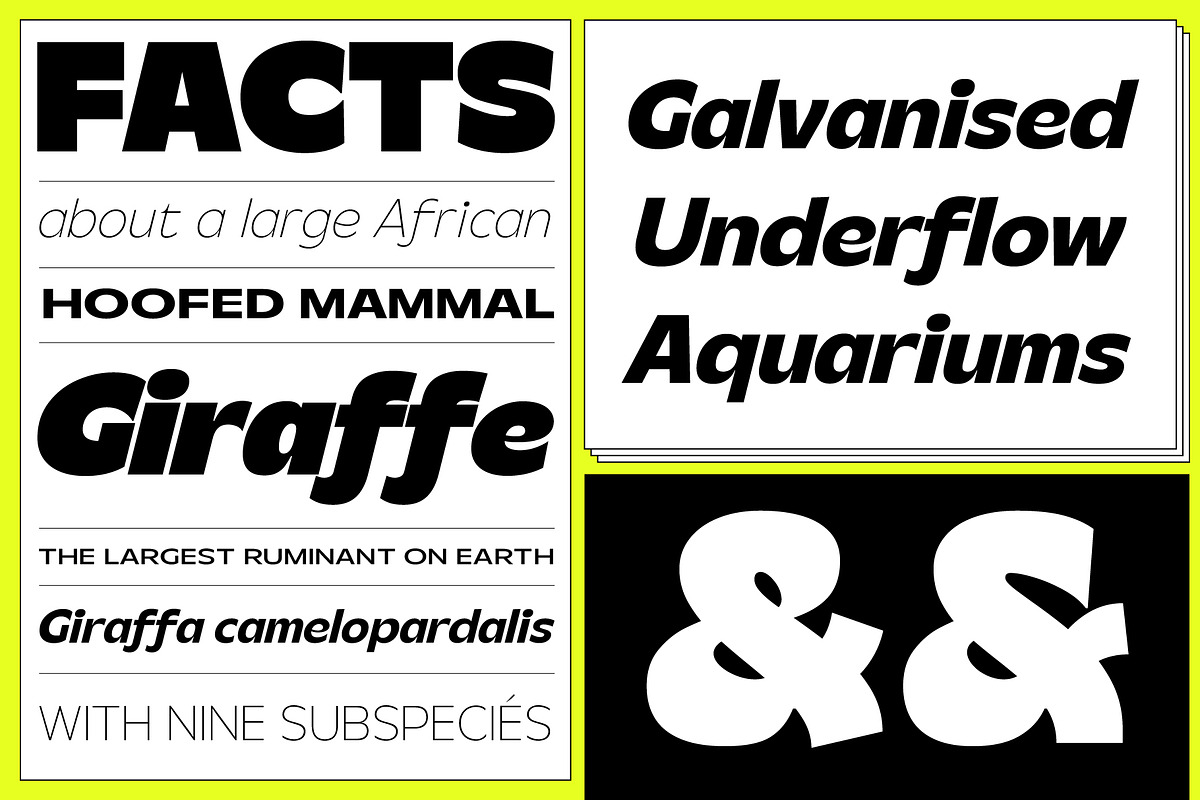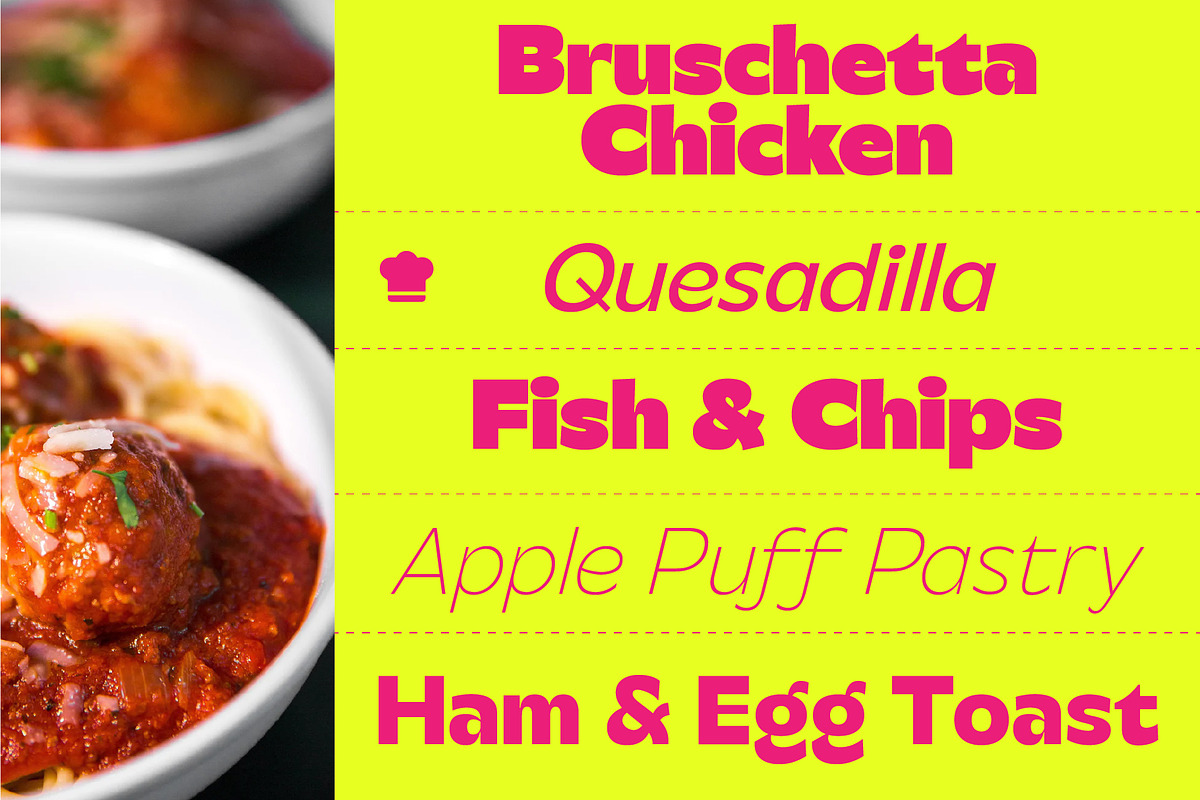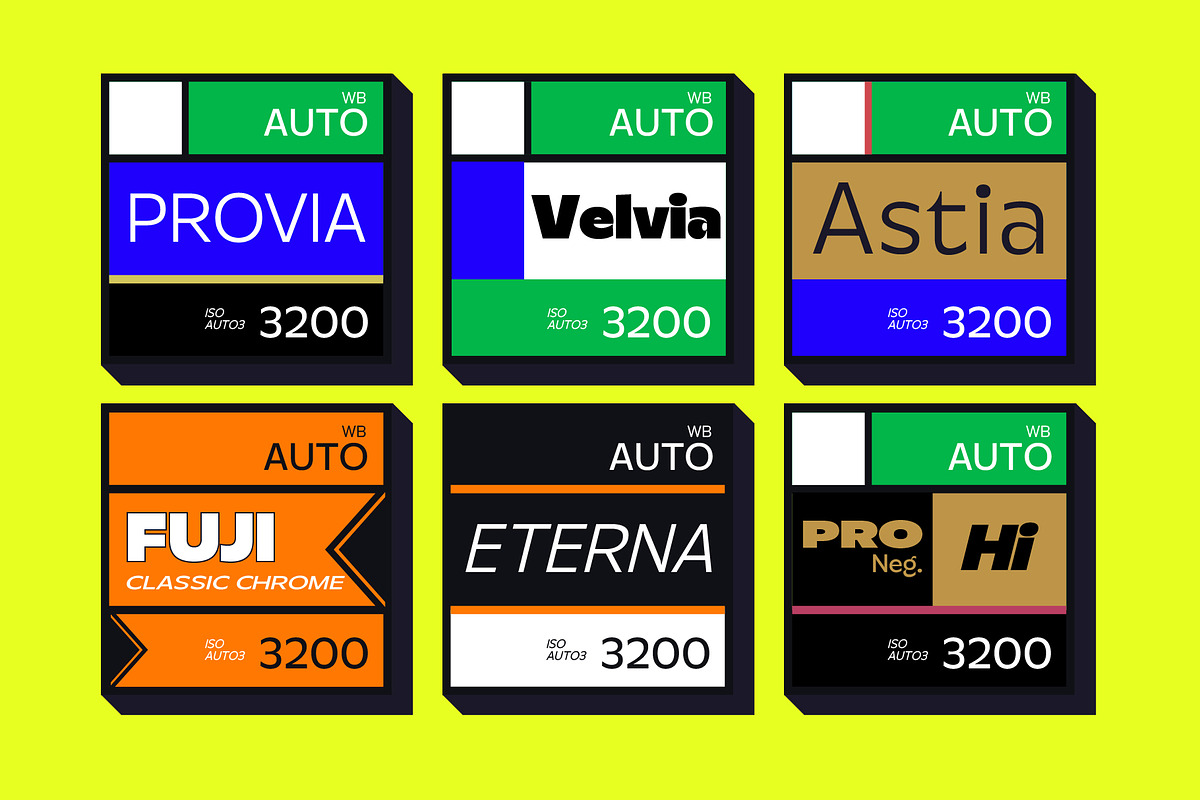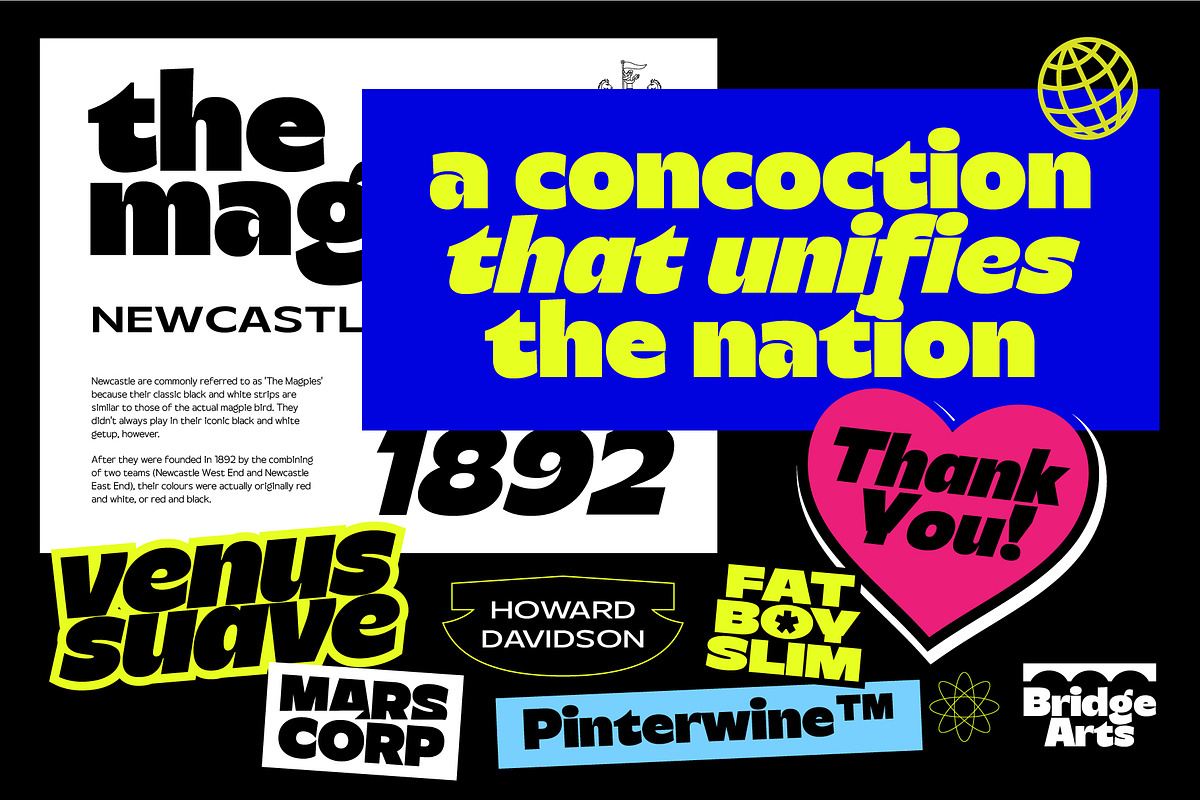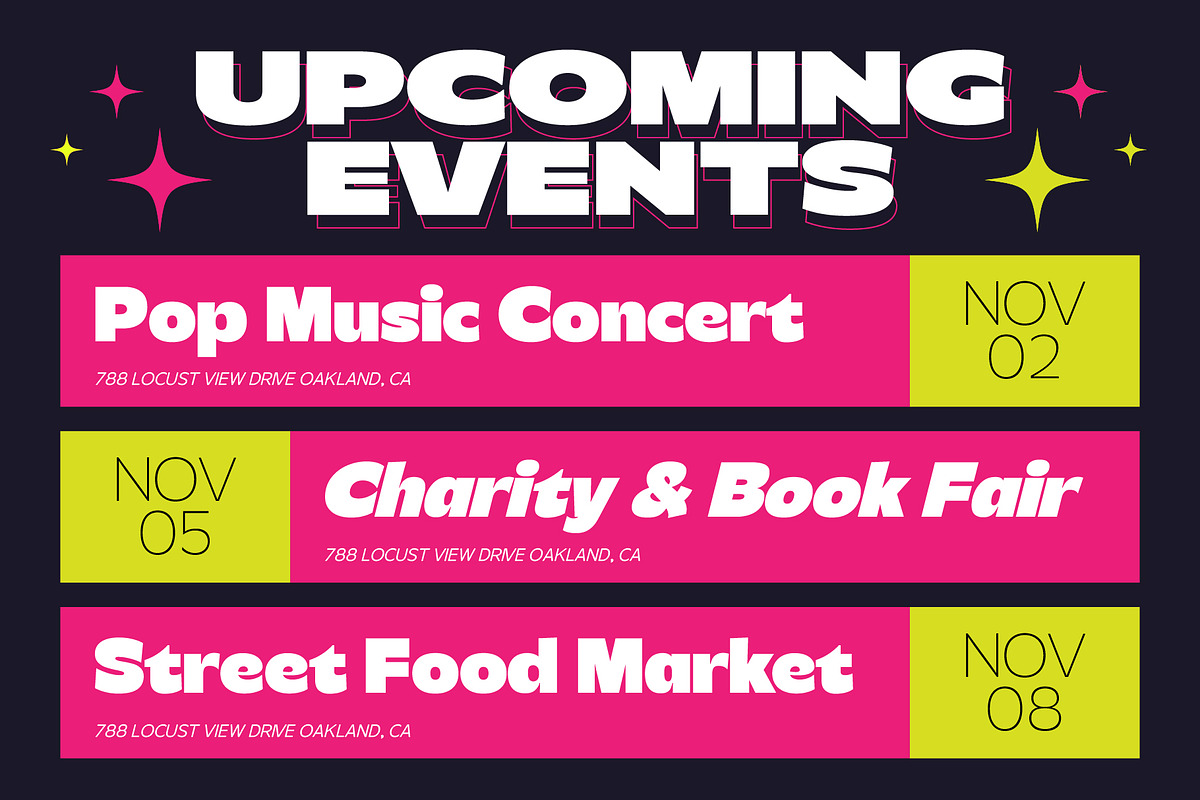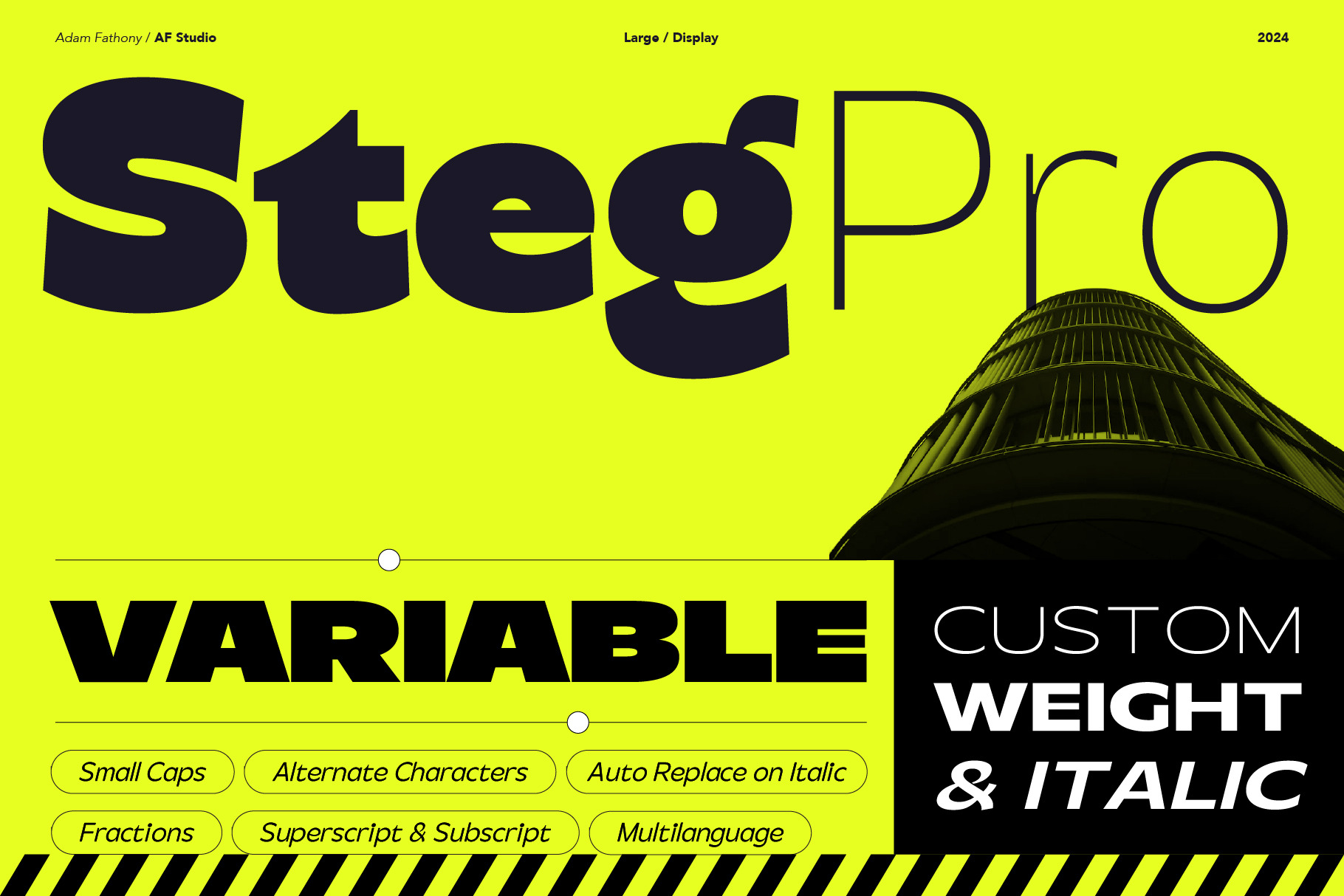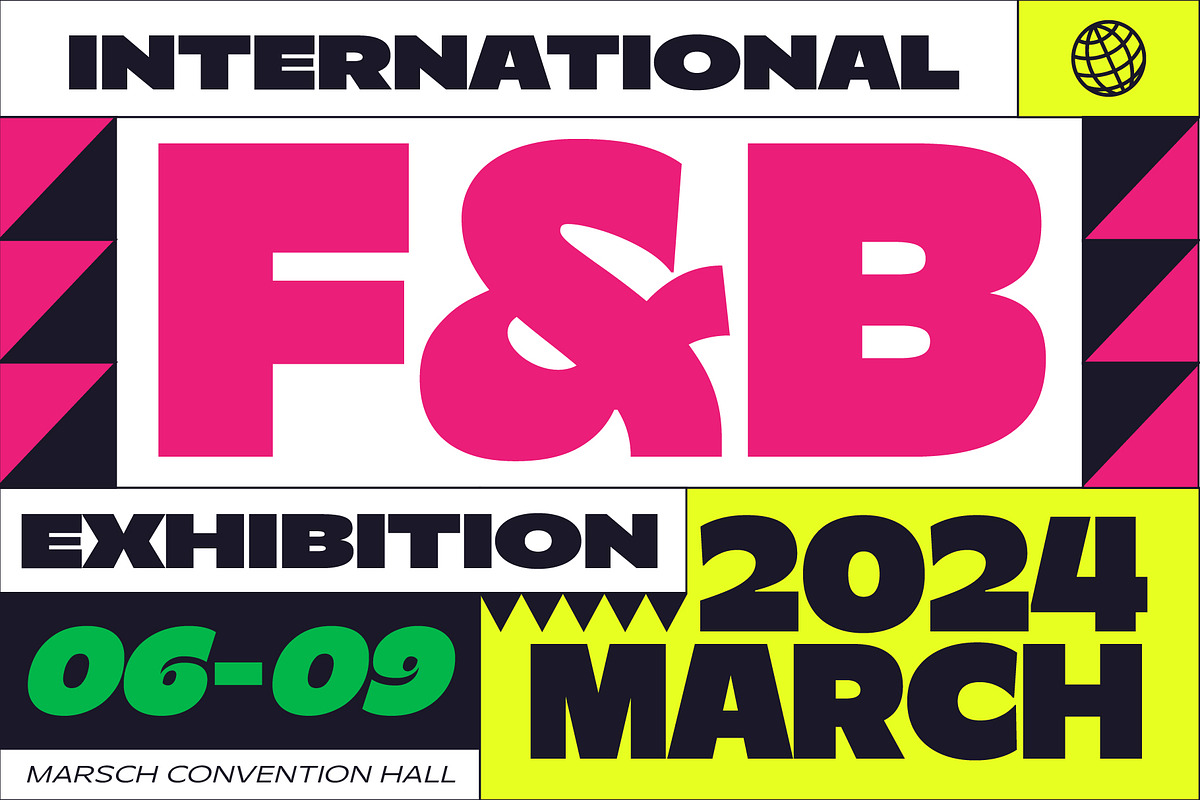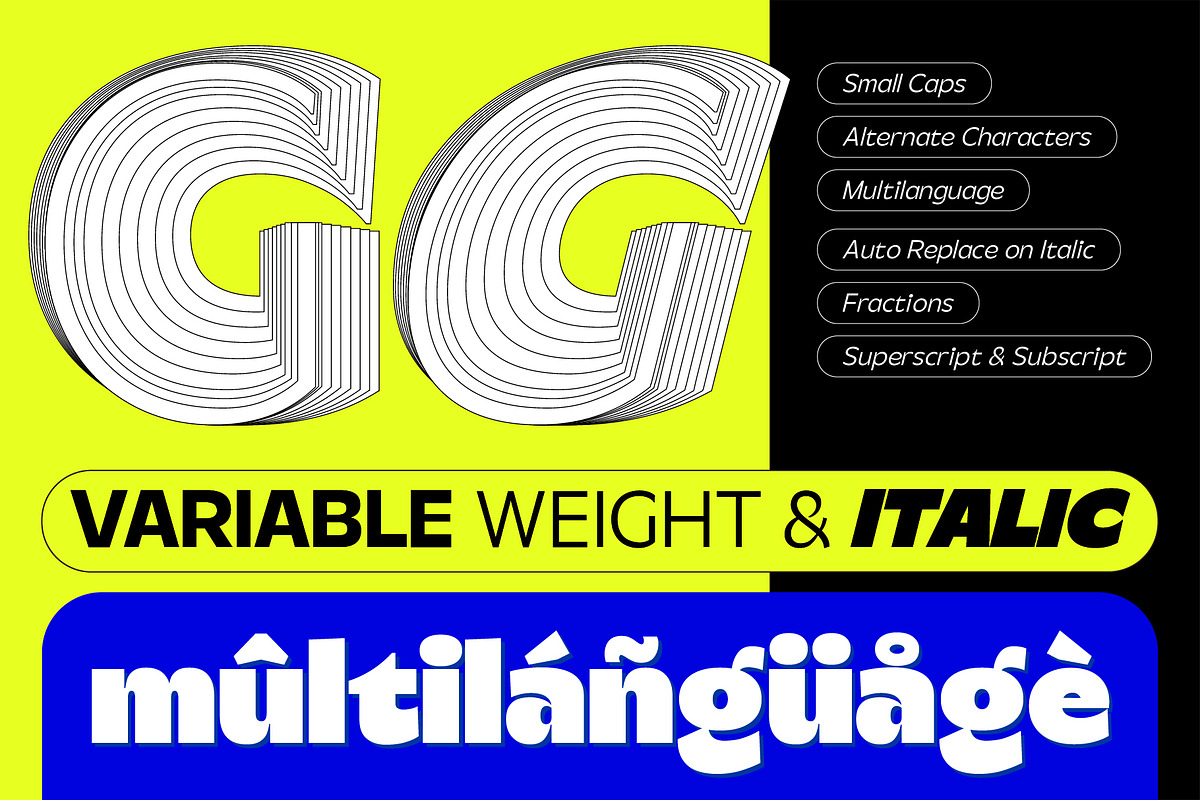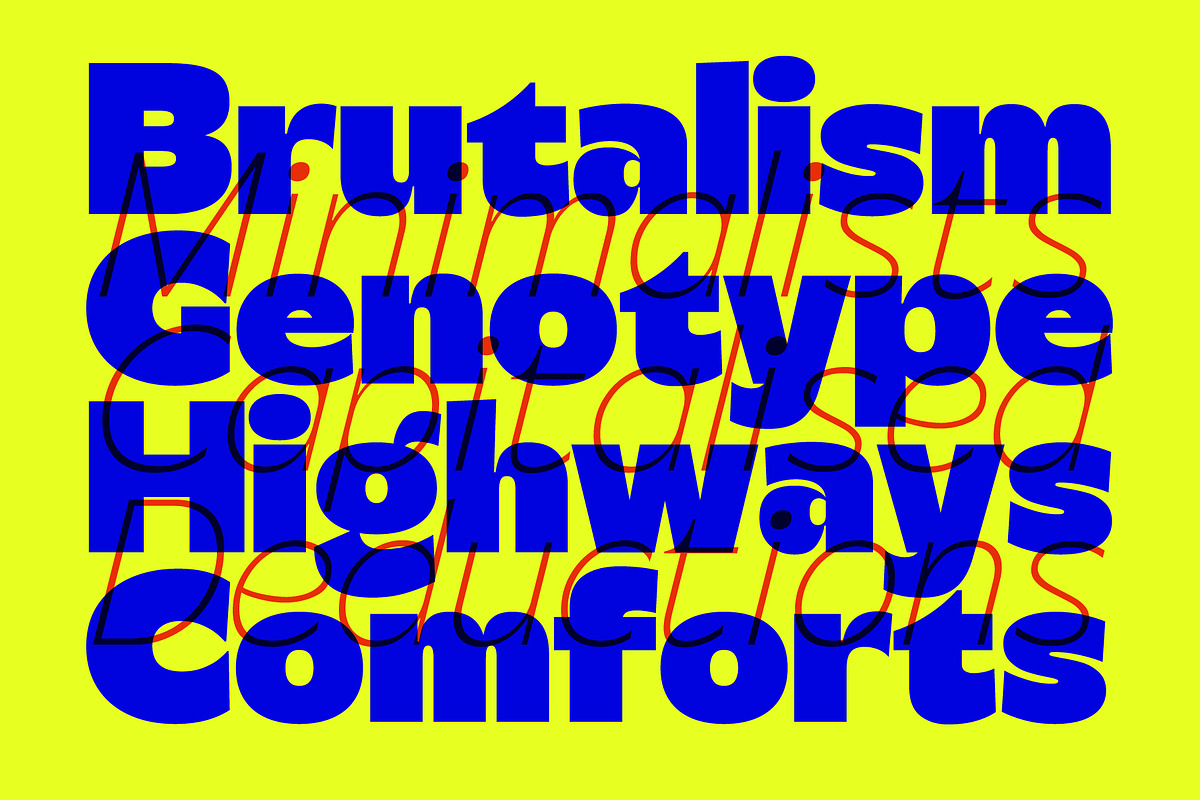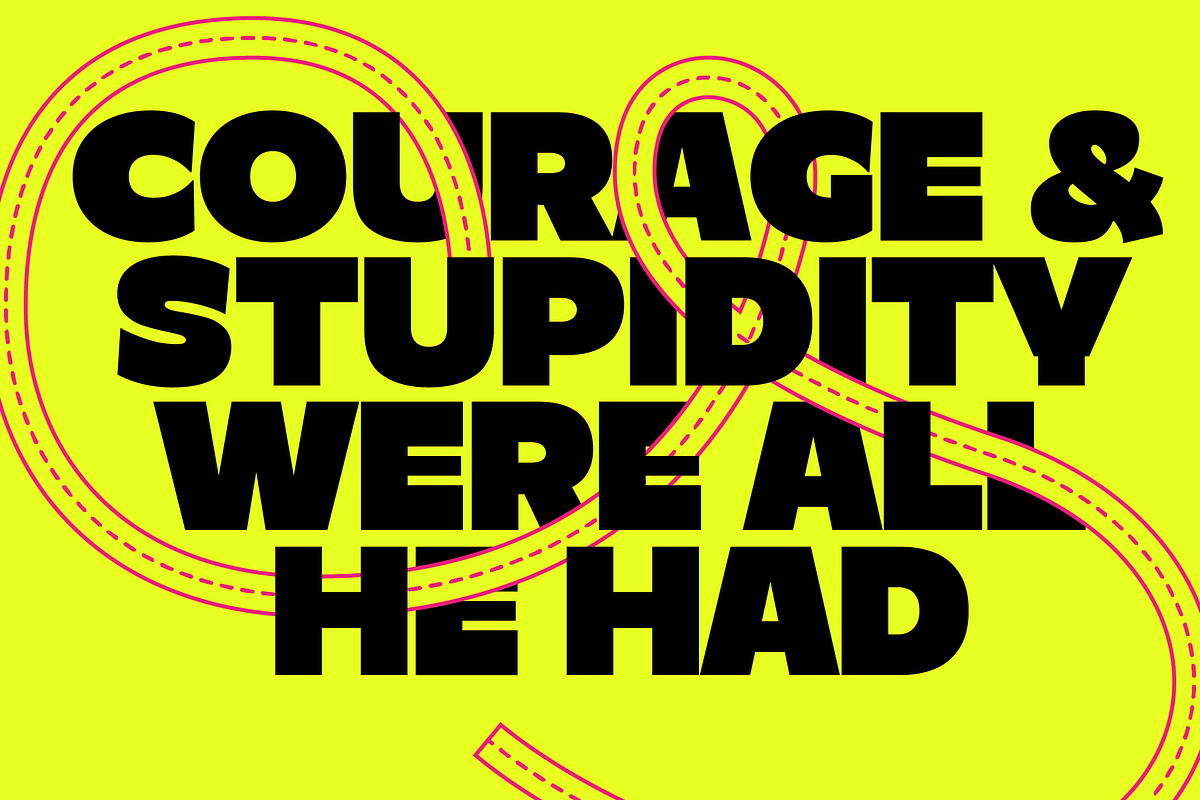
Steg Pro - Variable Fonts
Introducing Steg Pro – an ultra bold and minimalist sans-serif font designed for impactful headlines and big text. With its modern simplicity, Steg Pro commands attention and delivers a strong visual presence.
Crafted with clean lines and sharp edges, Steg Pro exudes contemporary elegance, making it perfect for modern design projects. Its bold weight ensures maximum impact, while its simplicity allows for versatile use across various applications.
Steg Pro comes with Variable Fonts, 9 weight Plus 9 Weight in italic. Steg Pro also packed with features to enhance your typographic creations. Small caps offer additional stylistic options, Auto replace letter like a true italic, while fractions, superscript, and subscript enable precise typographic composition. An alternate ampersand adds a touch of uniqueness to your designs.
Moreover, Steg Pro supports multilanguage characters, ensuring compatibility with diverse linguistic requirements. Whether your project calls for English, Spanish, French, or beyond, Steg Pro has you covered.